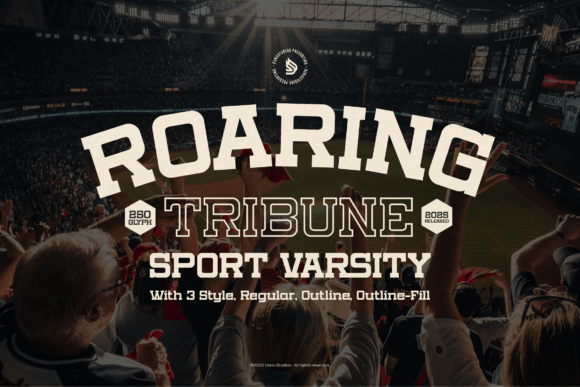
Roaring Tribune Font for Bold Editorial Design
Roaring Tribune is a bold and powerful varsity-style font that echoes the energy of stadium cheers and championship glory, making it an exceptional choice for publishers and content creators seeking to inject authority into their layouts. As a distinctive Slab Serif typeface, this family of Fonts offers more than just nostalgia; it provides a structural backbone for editorial design that demands attention without sacrificing legibility. For bloggers, magazine designers, and ebook authors, selecting the right display typeface is often the difference between content that gets scrolled past and content that gets read. Roaring Tribune bridges the gap between athletic vigor and sophisticated publishing aesthetics, allowing you to create headers, covers, and branding assets that feel both triumphant and professionally curated.
Using Roaring Tribune Styles for Magazine Covers and Blog Headers
When designing high-impact visuals, Roaring Tribune serves as a versatile anchor because its three distinct styles—Regular, Outline, and Outline-Fill—allow for dynamic layering within a single publication. In the competitive landscape of digital magazines and lifestyle blogs, your headline typography must function as a visual hook that instantly communicates the tone of the article. The Regular weight of this Slab Serif typeface provides a solid, authoritative presence perfect for main titles on magazine covers or hero images on blog posts. Its heavy stroke width ensures readability even when overlaid on busy photography or textured backgrounds, a common challenge in modern editorial design.
The Outline and Outline-Fill variations open up creative possibilities for subheads and accent text that complement rather than compete with the primary headline. For instance, an ebook creator might use the Outline-Fill style for a chapter number or a special edition badge, while reserving the solid Regular style for the main title. This internal consistency helps build a cohesive brand identity across different content formats. Unlike generic display Fonts that lack variation, Roaring Tribune allows you to maintain a unified visual language whether you are designing a print zine cover or a digital newsletter header. The varsity influence brings a sense of established tradition and team spirit, which translates beautifully to community-focused publications, coaching programs, and collaborative projects where the reader should feel like part of a winning team.
Roaring Tribune Typography for Ebook Titles and Lead Magnets
Creating downloadable assets requires Roaring Tribune to perform double duty as both a stylistic statement and a functional navigation tool within PDFs and digital guides. When designing ebook covers or lead magnets, the goal is to convey value and professionalism at thumbnail size. The robust geometry of this Slab Serif ensures that title text remains crisp and legible on mobile screens and e-reader devices. For recipe ebooks, fitness guides, or educational workbooks, the championship energy of the font suggests mastery and expertise, subtly reinforcing the authority of the author before the reader even opens the file.
Beyond the cover, Roaring Tribune excels in structuring the interior reading experience. Use the Regular style for chapter openers to create a clear visual break that signals a new section to the reader. The Outline style can be effectively utilized for pull quotes, sidebars, or worksheet instructions, providing visual variety that breaks up dense body copy. This strategic use of typography improves scannability, a critical factor for user engagement in digital products. When creating printable planners or journals, the font’s sturdy construction holds up well to home printing, ensuring that your design assets look premium regardless of the output quality. By leveraging the specific personality of this typeface, creators can transform standard informational content into an immersive branded experience that resonates with audiences looking for motivation and structure.
Pairing Roaring Tribune with Body Copy Fonts for Readable Content
Achieving professional editorial balance requires pairing Roaring Tribune with complementary typefaces that support long-form reading without creating visual friction. While this varsity-style Slab Serif is a powerhouse for display purposes, it should generally be reserved for headlines, captions, and short bursts of text to maintain optimal readability. For body copy in blog posts, newsletters, or book interiors, consider coupling it with a clean sans serif font like Inter or Open Sans, or a highly readable serif like Merriweather or Lora. The contrast between the decorative, energetic nature of Roaring Tribune and the neutral stability of a text font creates a hierarchy that guides the reader’s eye naturally through the content.
This pairing strategy is particularly effective for quote graphics and social media templates derived from longer articles. When extracting key insights for Instagram or Pinterest, use Roaring Tribune for the attribution or the key phrase, and a lighter weight companion font for the supporting context. This ensures the graphic stops the scroll while remaining accessible. For newsletter designers, using Roaring Tribune for section dividers or the masthead establishes a recurring visual motif that subscribers begin to associate with your brand. It is important to avoid using this specific typeface for paragraphs of text, as the heavy slab serifs and varsity detailing can cause eye fatigue over extended reading sessions. Instead, treat it as a spice that enhances the overall flavor of your publication’s typography system.